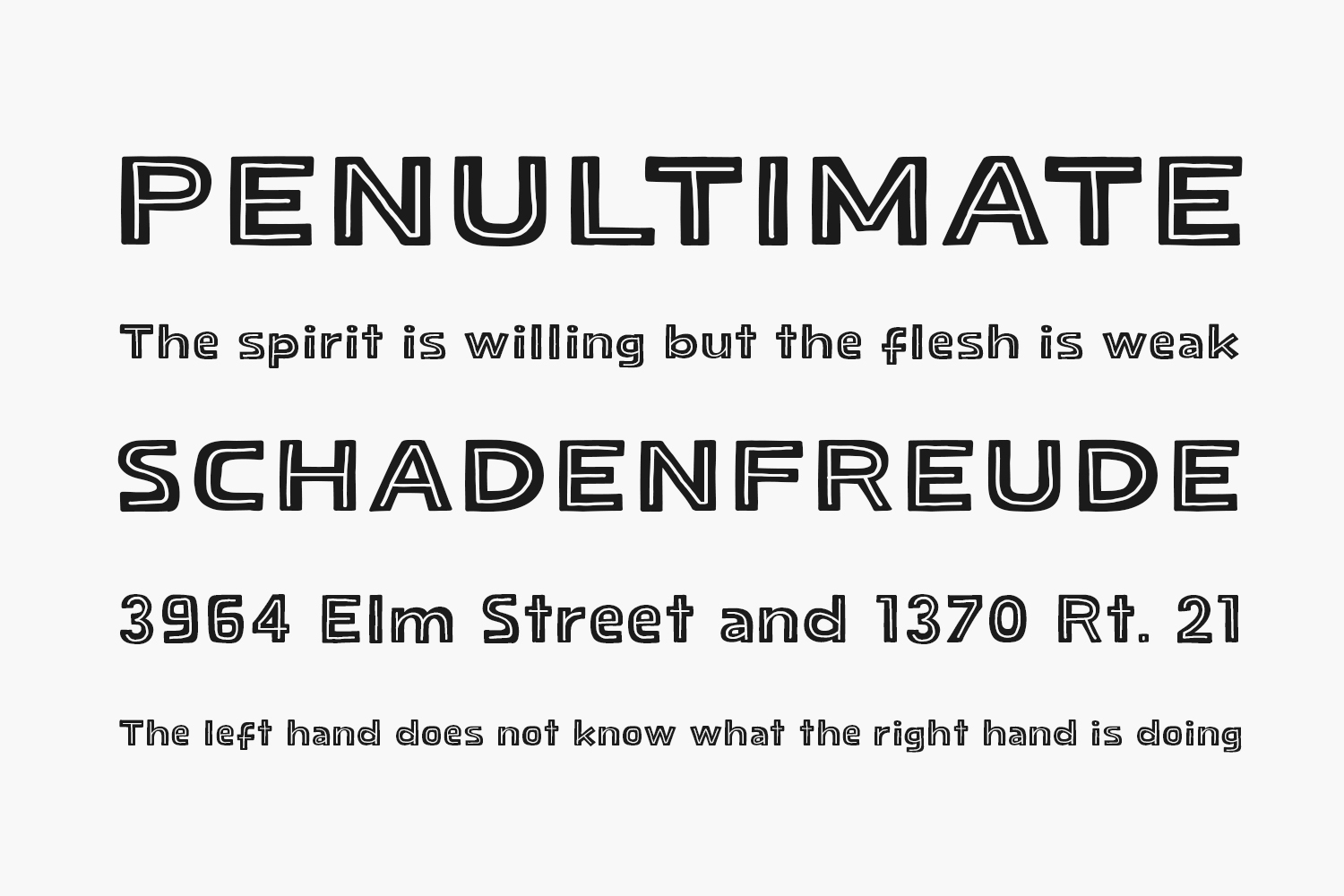
Maputo Free Font is a contemporary and charming handwritten display font, ideal for a wide range of creative projects such as posters, logos, magazines, book covers, banners, and more! Acquire this exceptional font and infuse your designs with its delightful essence. Its versatility allows seamless integration into a vast array of projects, elevating your creative ideas and ensuring they grab attention and shine. Maputo Free Font is free for personal or commercial use.